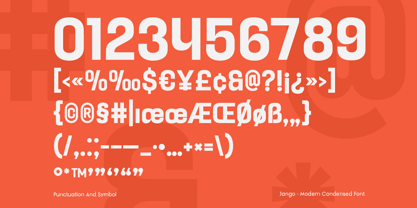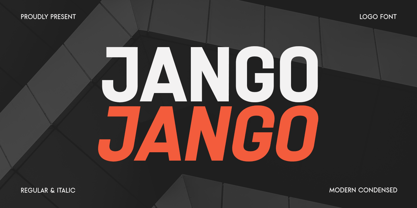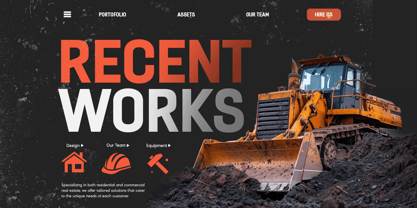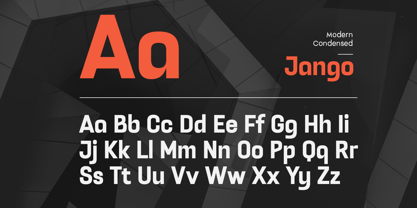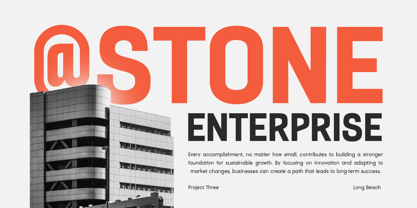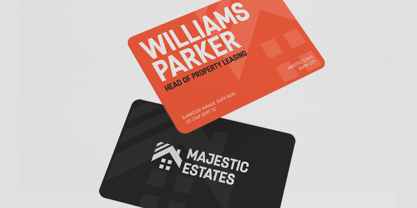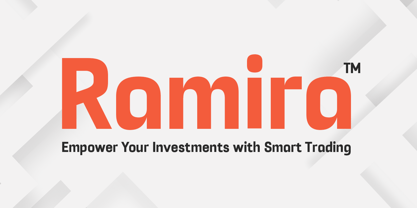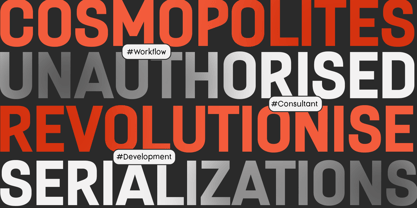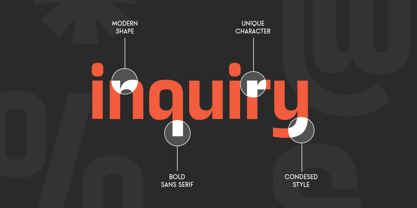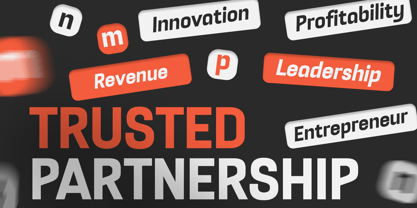
Jango
by Dareco Studio
The Jango Font Family was designed by Zamroni Hamzah, Kusnidah Marpuah and published by Dareco Studio. Jango contains 2 styles and family package options.
JANGO is a modern condensed logo font designed to make your branding stand out with strong structure and modern precision. Its tall, narrow proportions create an elegant yet powerful impression — perfect for logos, posters, headlines, and high-impact layouts. Crafted for designers who value bold simplicity, JANGO delivers a professional and futuristic look that’s ideal for , technology, architecture, and creative industries. Its condensed style maximizes space without compromising readability, making it great for minimalist compositions and digital branding systems. Whether used for brand identity, packaging, or editorial titles, JANGO combines modern clarity with distinctive character — ensuring your designs feel fresh, balanced, and confident. Font Features Bold and condensed sans serif for impactful branding Perfect for logos, posters, packaging, and editorial use Modern geometric style for sleek, professional layouts Optimized for both print and digital platforms Uppercase, lowercase, numerals, and punctuation included OpenType features for advanced typographic control Fully compatible with Adobe Illustrator, Photoshop, InDesign, and Canva Multilingual support for 60+ languages including Afrikaans, Dutch, English, French, German, Italian, Portuguese, Spanish, and more. Create bold, space-smart branding with JANGO – the ultimate modern condensed logo font for sleek.